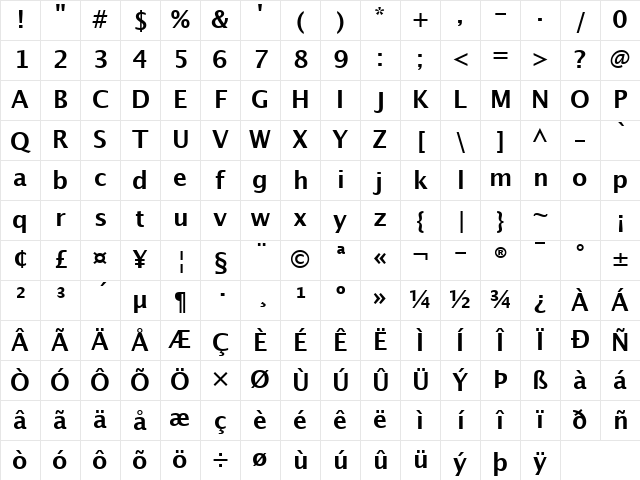
Lucida Sans Demibold
Style: Demibold
Foundry: Bigelow & Holmes Inc.
Designer: Charles Bigelow & Kris Holmes
Design Context for Lucida Sans
Lucida Sans is a composed and adaptable typeface that performs quietly and consistently across a wide range of design contexts. Its bold stroke weight gives it real presence on the page.
Who designed the Lucida Sans Demibold font?